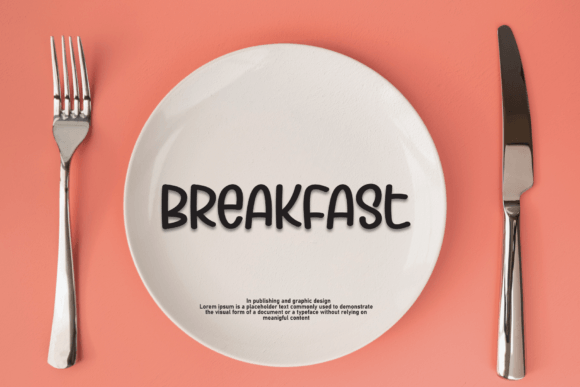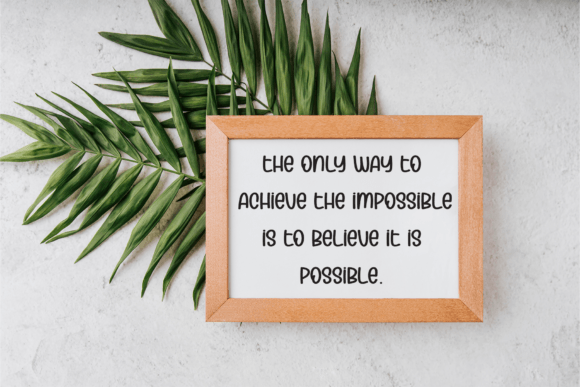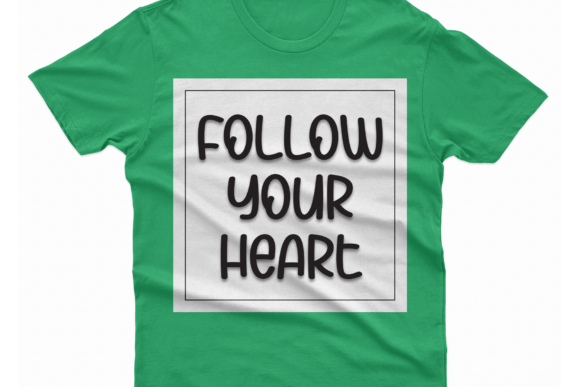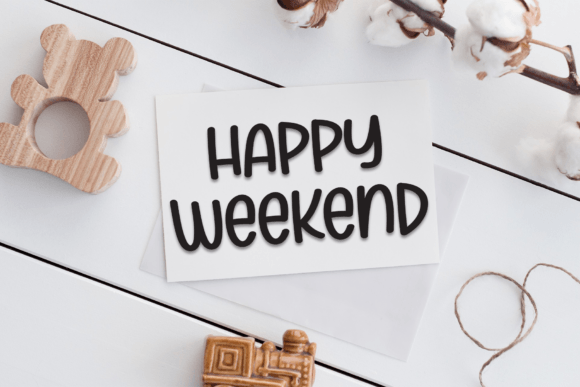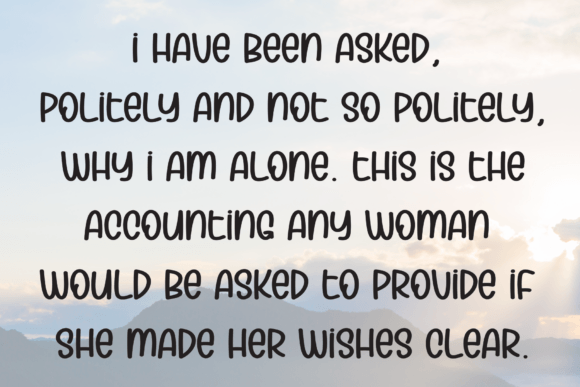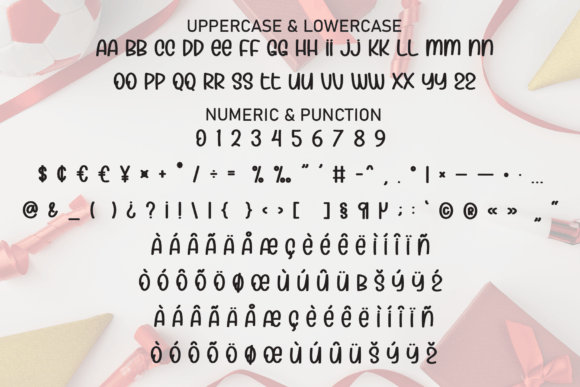
Introduction to Merry Birthday Font Font
Fonts play a crucial role in design, and the Merry Birthday Font font is a typeface that brings both character and versatility to any project. Whether you’re working on a branding project, a website, or a print design, the Merry Birthday Font font offers a unique style that can elevate your work.
Immerse yourself in the cozy charm of this delightful, handwritten display font.
Exuding both sweetness and friendliness, this cheerful font is a perfect addition to wedding invitations, greeting cards, or any designs yearning for a sprinkle of fun Refreshingly quaint, itβs bound to provide an enchanting touch to your creative canvas.
Key Features of Merry Birthday Font Font
Why Choose Merry Birthday Font Font?
The Merry Birthday Font font is more than just a typeface β it’s a design tool that helps you communicate your message with style and clarity. Its unique character set and versatile design make it suitable for a wide range of applications, from elegant invitations to bold headlines.
With its carefully crafted letterforms and balanced proportions, the Merry Birthday Font font ensures readability and visual appeal across all mediums.
What makes Merry Birthday Font font special?
The Merry Birthday Font font stands out with its unique design, exceptional readability, and versatility across various design applications.